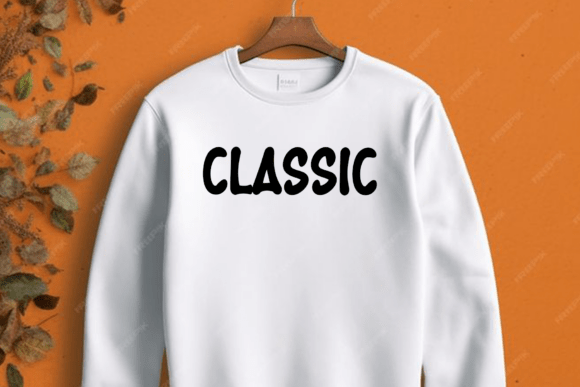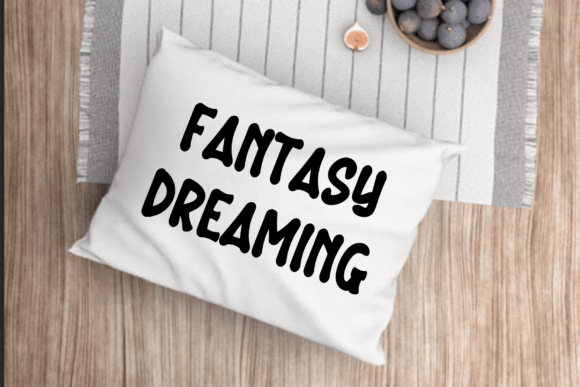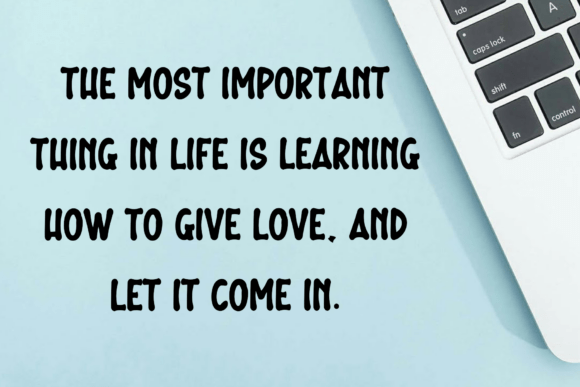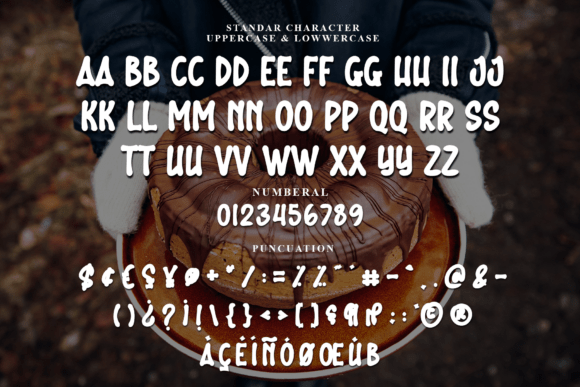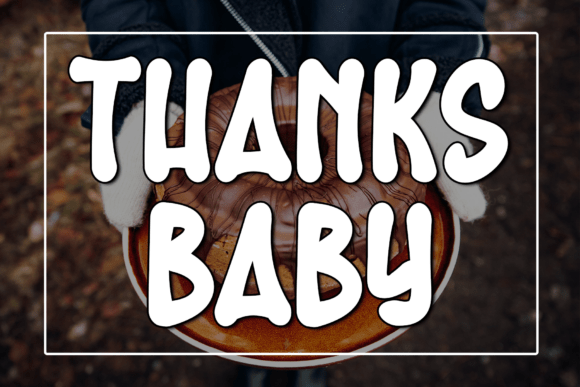
Cake Winter Font: A Playful and Bubbly Display Font for Winter Marketing
Are you looking for a font that can add a touch of playfulness and warmth to your winter marketing campaigns? Look no further than Cake Winter Font. This massive and high-impact display font is designed to embody a playful, “bubbly” organic aesthetic that is perfect for artisanal food branding, seasonal winter marketing, creative product packaging, and vibrant social media quotes.
What Makes Cake Winter Font Stand Out?
Cake Winter Font features heavy, interlocking letterforms characterized by a rhythmic, slightly bouncy baseline and distinctive, hand-sculpted proportions. The font’s soft, rounded terminals and expansive visual weight provide a sense of warmth and approachability, making it a standout choice for designers and crafters looking to add a personal touch to their projects.
Key Features of Cake Winter Font
• Playful and Organic Aesthetic: Cake Winter Font has a unique and playful aesthetic that is perfect for winter marketing campaigns.
• Heavy, Interlocking Letterforms: The font features heavy, interlocking letterforms that give it a distinctive look.
• Rhythmic Baseline: The font’s rhythmic, slightly bouncy baseline adds to its playful feel.
• Hand-Sculpted Proportions: The font’s hand-sculpted proportions give it a unique and organic feel.
• Soft, Rounded Terminals: The font’s soft, rounded terminals add to its sense of warmth and approachability.
Use Cases for Cake Winter Font
Cake Winter Font is a versatile font that can be used in a variety of contexts, including:
• Artisanal Food Branding: The font’s playful and organic aesthetic makes it perfect for artisanal food branding.
• Seasonal Winter Marketing: The font’s winter-themed design makes it perfect for seasonal winter marketing campaigns.
• Creative Product Packaging: The font’s unique and playful aesthetic makes it perfect for creative product packaging.
• Vibrant Social Media Quotes: The font’s bold and playful design makes it perfect for vibrant social media quotes.
Why Designers and Crafters Love Cake Winter Font
Designers and crafters love Cake Winter Font for its unique and playful aesthetic. The font’s heavy, interlocking letterforms and rhythmic baseline give it a distinctive look that is sure to stand out. Additionally, the font’s soft, rounded terminals and expansive visual weight provide a sense of warmth and approachability that is perfect for adding a personal touch to projects.
Tips for Using Cake Winter Font
Here are a few tips for using Cake Winter Font:
• Use it for Headlines: Cake Winter Font is perfect for headlines and titles.
• Experiment with Colors: The font’s bold design makes it perfect for experimenting with different colors and textures.
• Pair it with Other Fonts: Cake Winter Font can be paired with other fonts to create a unique and visually appealing design.
Cake Winter Font is a playful and bubbly display font that is perfect for winter marketing campaigns. Its unique and organic aesthetic makes it a standout choice for designers and crafters looking to add a personal touch to their projects. With its heavy, interlocking letterforms and rhythmic baseline, Cake Winter Font is sure to add a touch of warmth and approachability to any project.